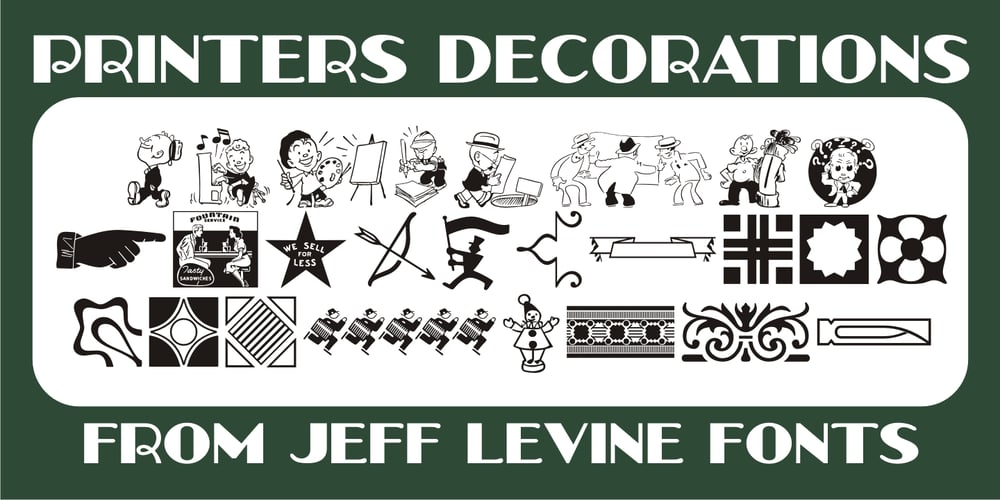
Printers Decorations JNL Font Family was designed by Jeff Levine and published by Jeff Levine. Printers Decorations JNL contains 1 styles and family package options. More vintage cartoons, decorations, embellishments and various letterpress dingbats have been re-drawn and collected in Printers Decorations JNL.